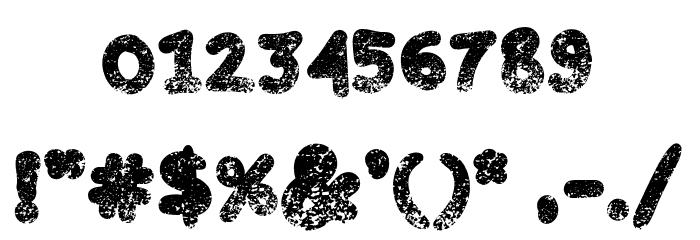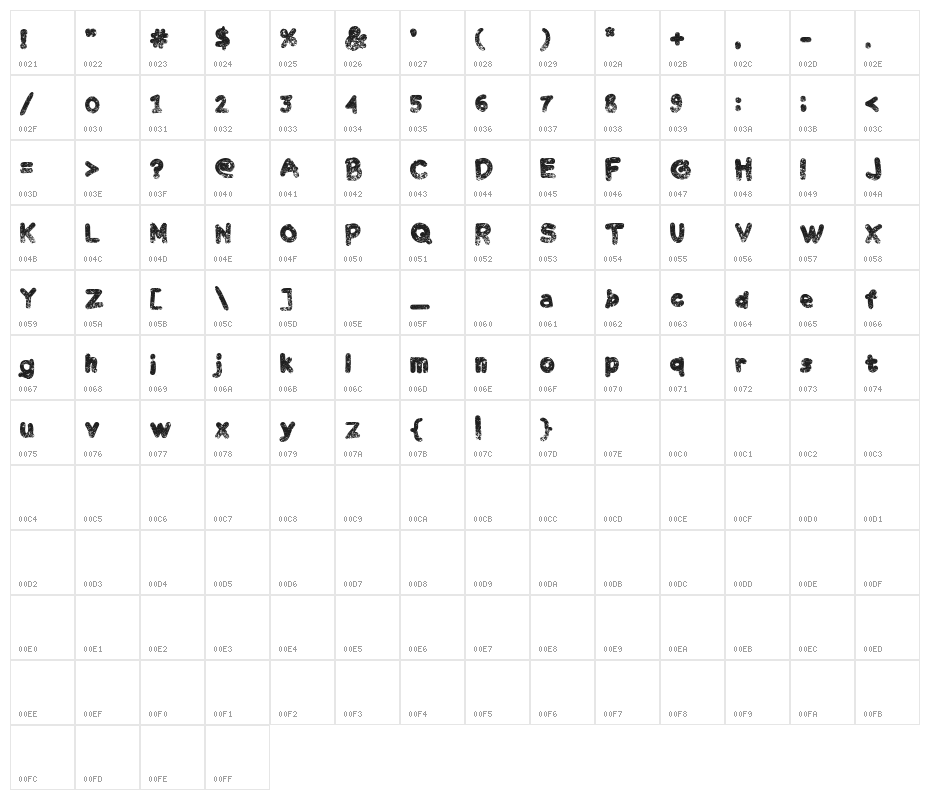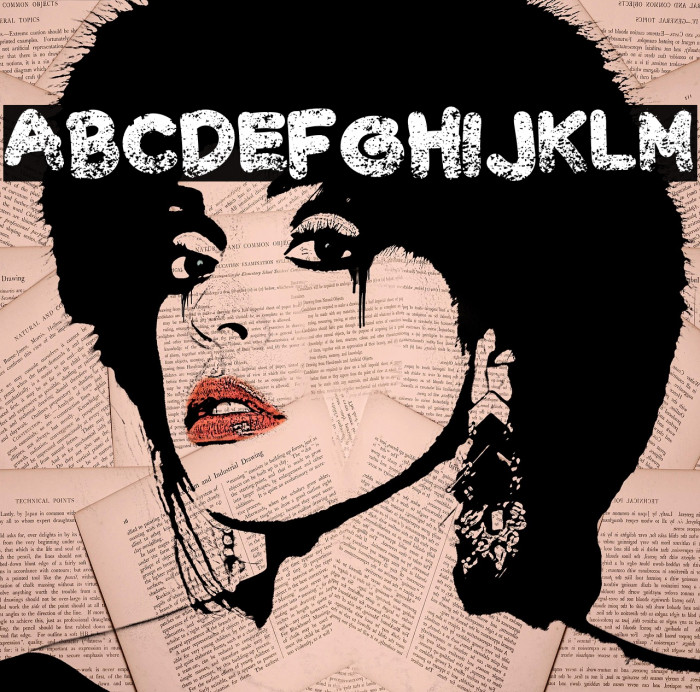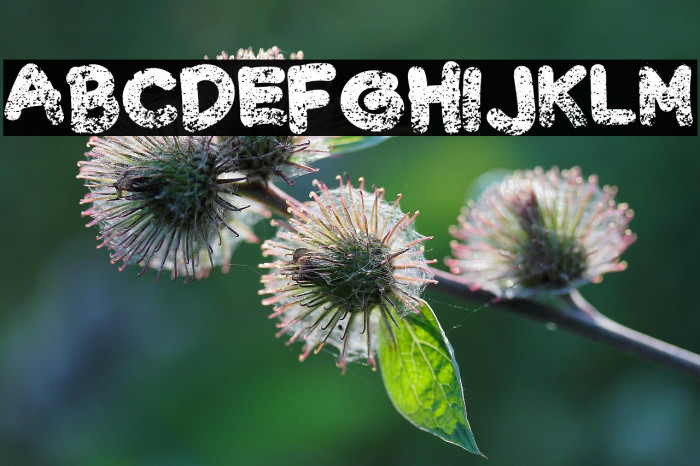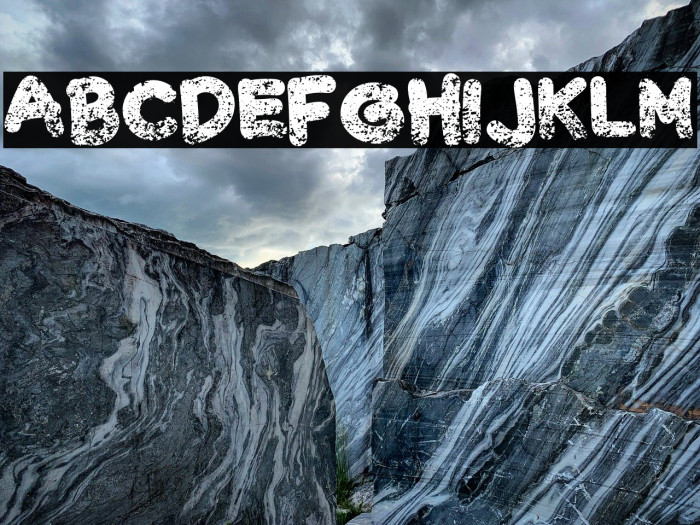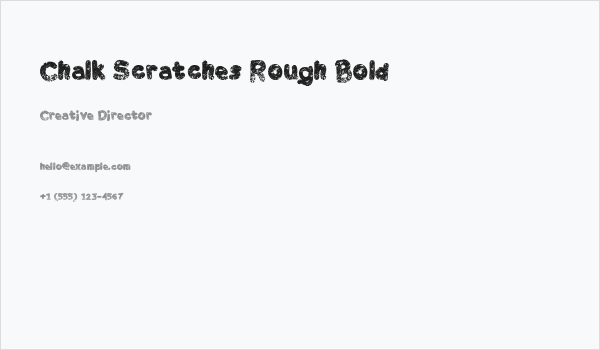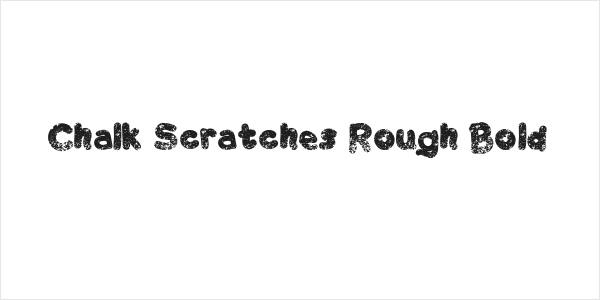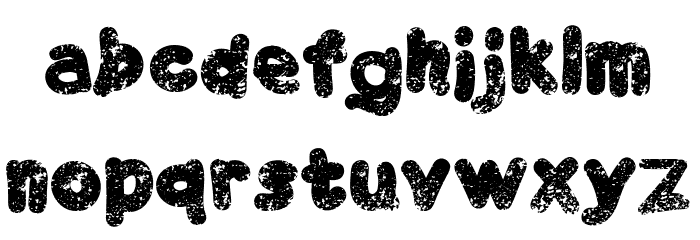
Chalk Scratches Rough Bold Font
Chalk Scratches Rough Bold Description
This font features a bold and rough texture, reminiscent of chalk scratches on a blackboard. The characters are heavily distressed, giving them a rugged and organic appearance. Each letter has a unique pattern of wear, adding to the overall dynamic and energetic feel. The boldness of the font ensures high visibility, making it suitable for eye-catching designs. Despite its rough texture, the characters maintain good legibility, with consistent proportions and spacing. This font is ideal for projects that require a handmade or vintage aesthetic, such as posters, flyers, or creative branding.
| Proposed Projects | Ideal for posters, flyers, creative branding, and designs needing a handmade or vintage look. |